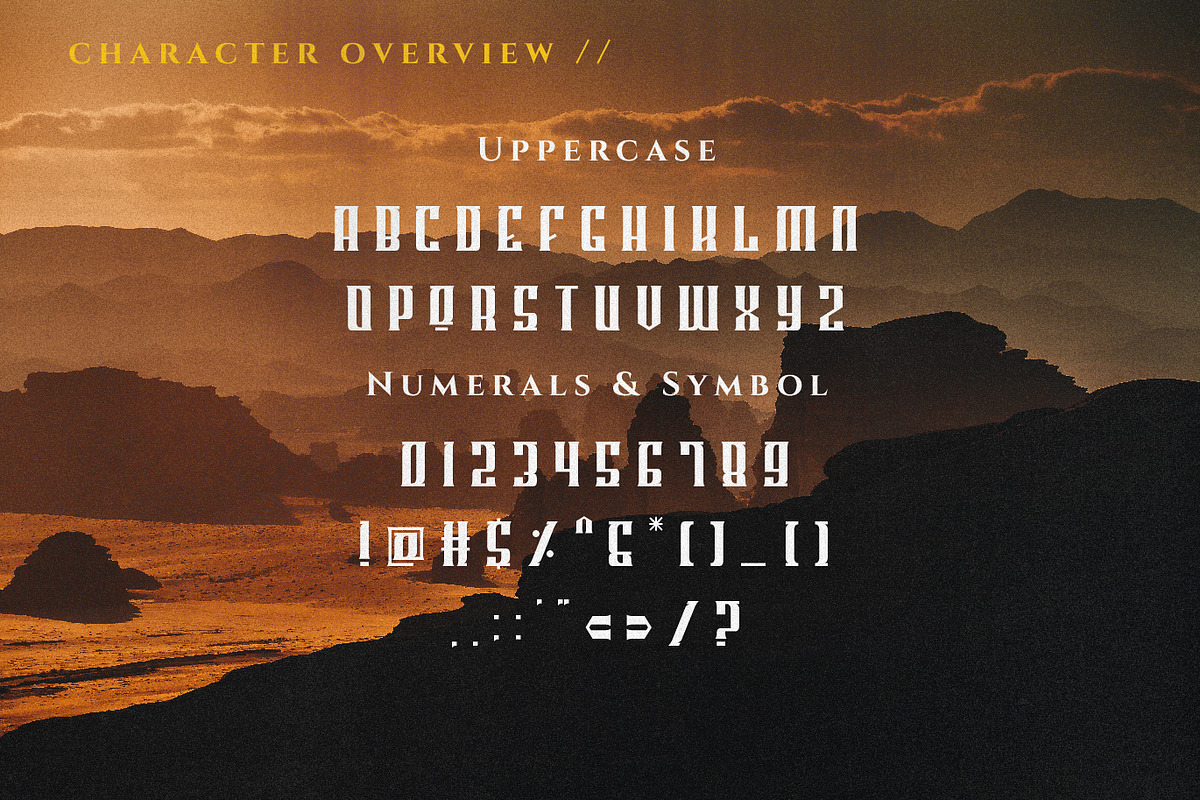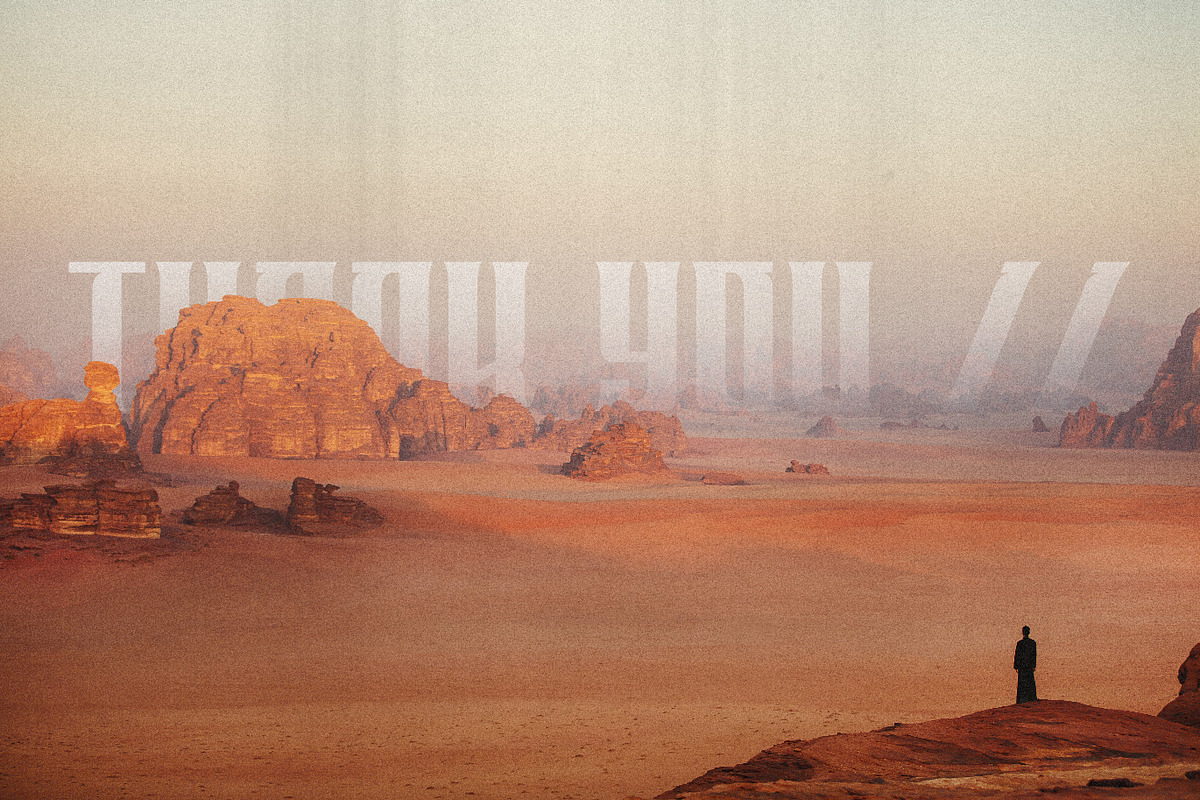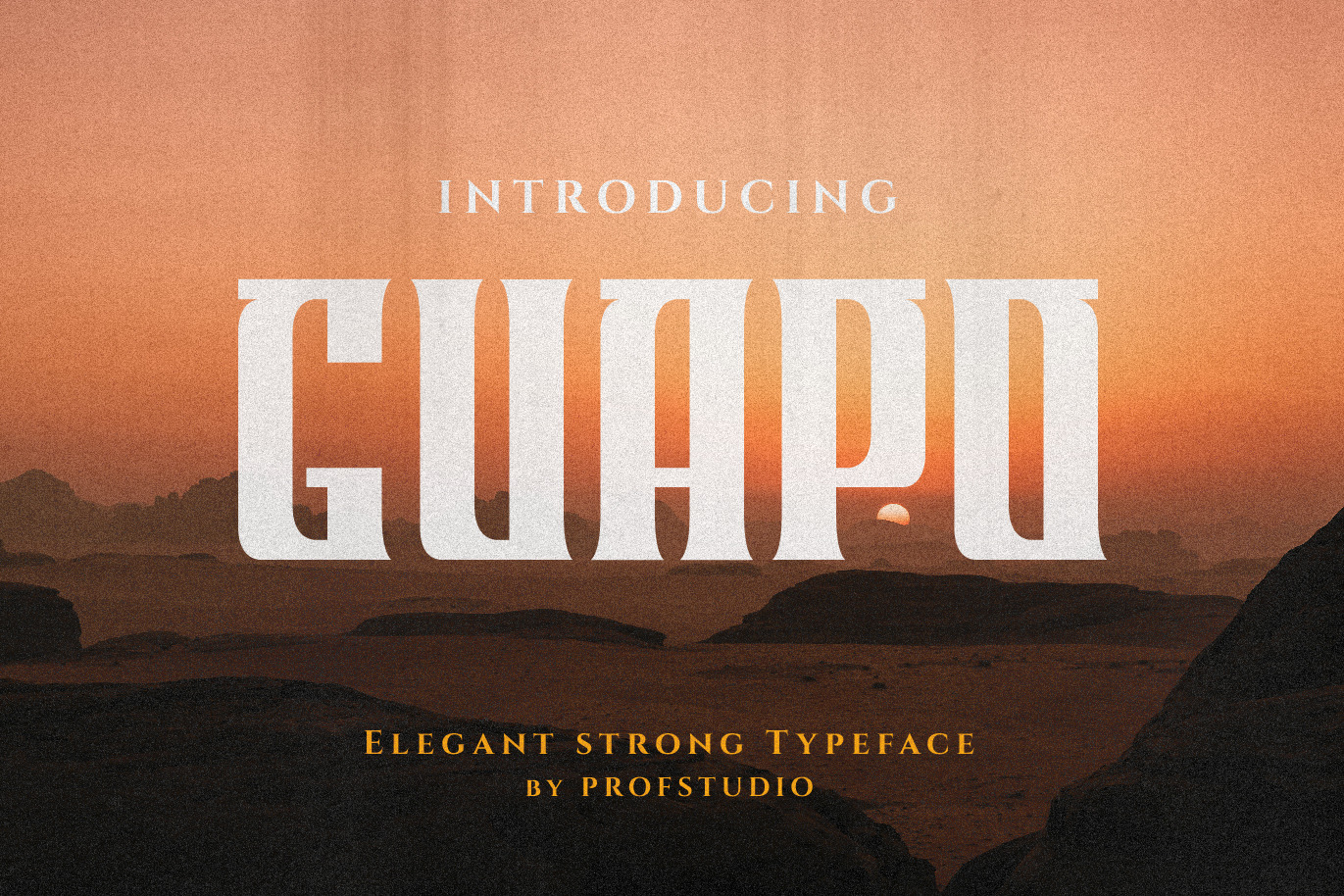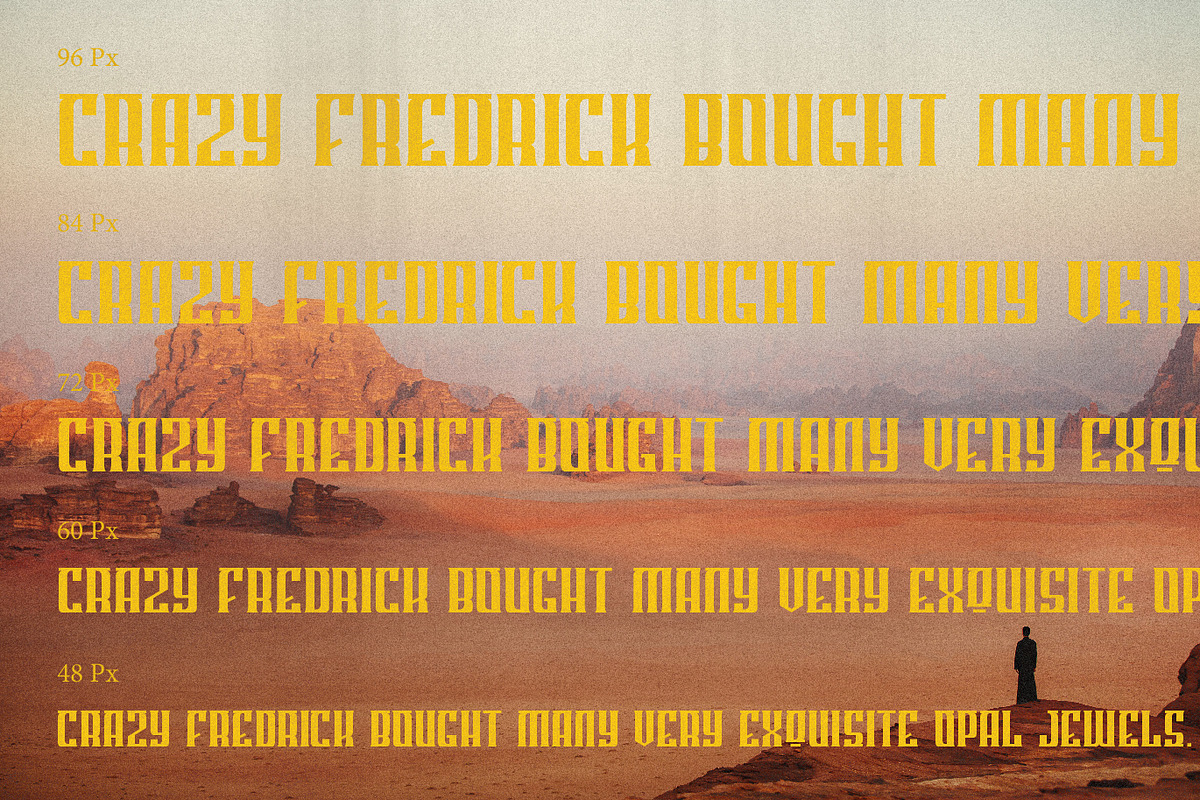
Guapo - Elegant Condensed Typeface
Hi Ladies and Gentleman ! Proudly present Modern Display Typeface “Guapo” for your business.
Guapo - Modern Display which can be interpreted professional. we keep this font looks Modern, Bold, readable, stylish, catchy and easy to use.
Guapo - is the great choice for event design ,logo and many other design project. Guapo here to make your work to high level!!!